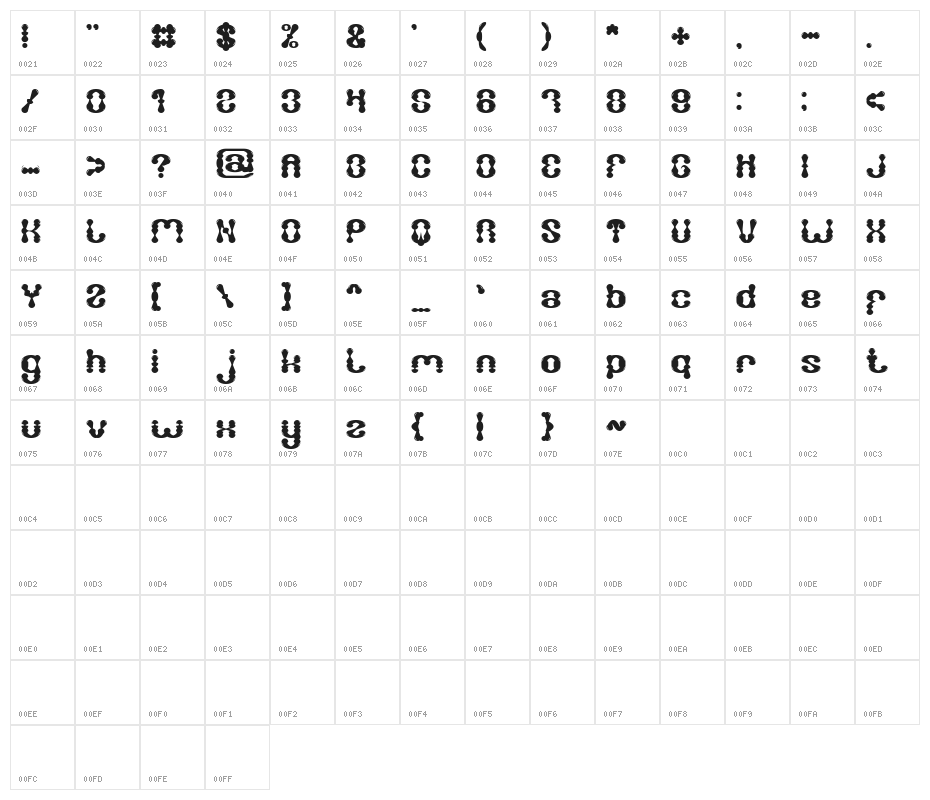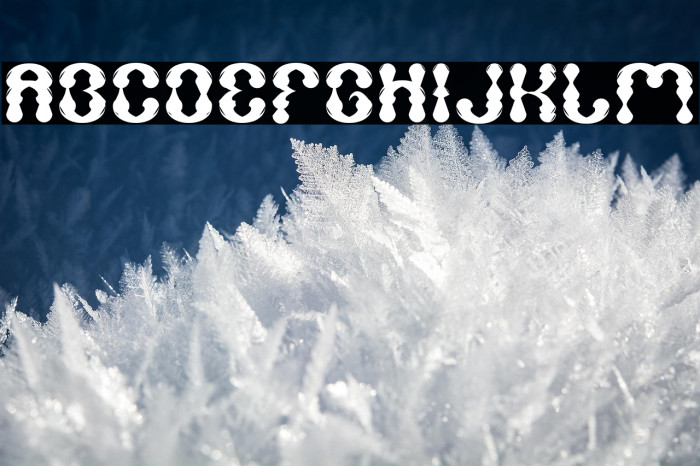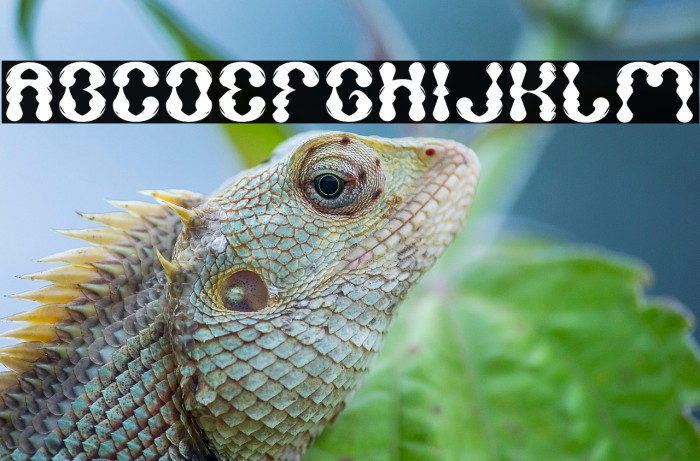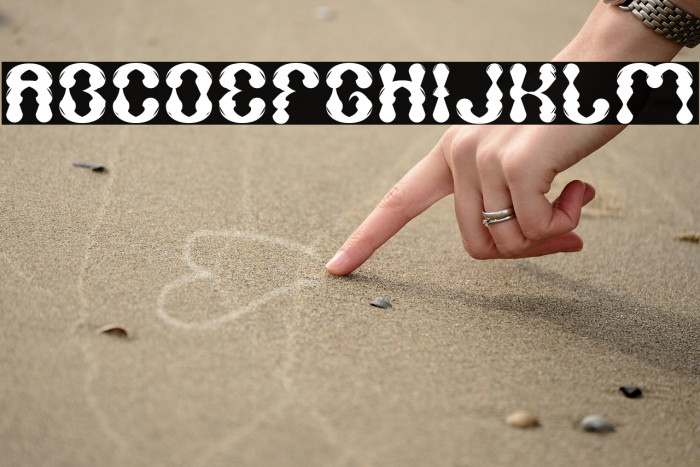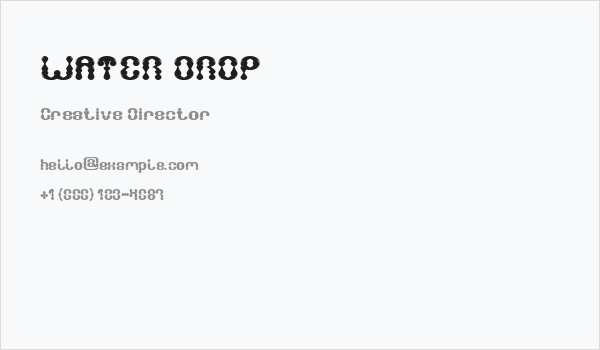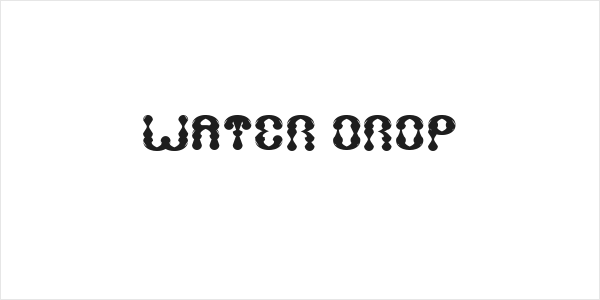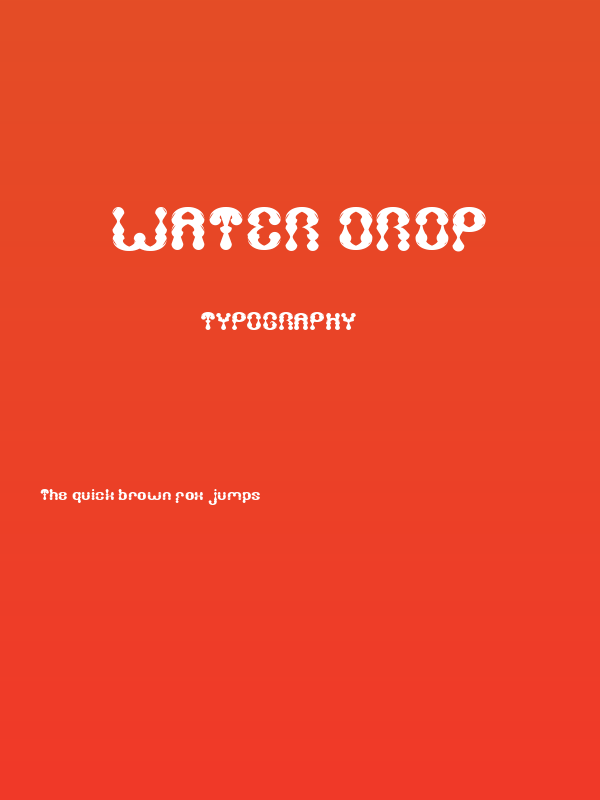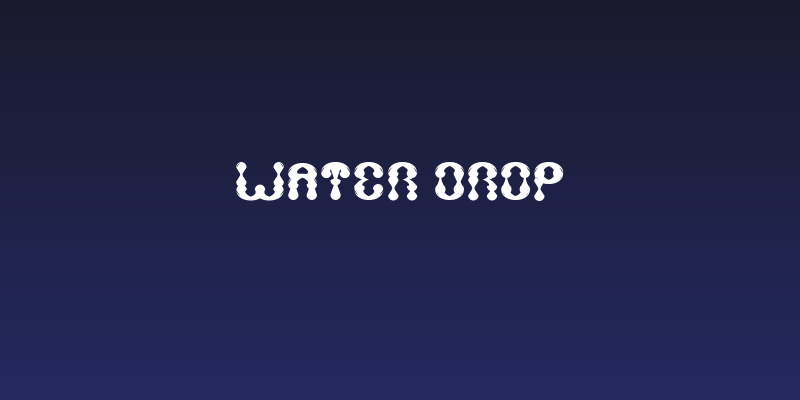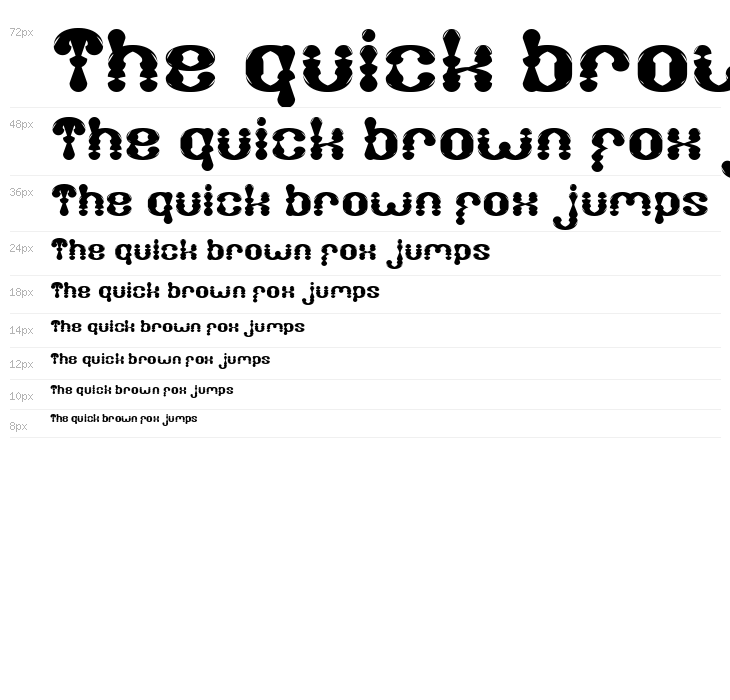
WATER DROP Font
WATER DROP Description
This font features a unique and playful design, characterized by its rounded, bubble-like shapes that resemble droplets of water. The letters are bold and have a consistent thickness throughout, giving them a strong presence. The style is decorative, with each character having a whimsical and fluid appearance, making it stand out in any design. The font maintains a consistent width, with tight character spacing that enhances its cohesive look. The high contrast in stroke thickness adds to its dynamic and eye-catching nature, making it ideal for creative and artistic projects.
| Proposed Projects | Ideal for creative projects such as posters, logos, children's books, and playful branding. |